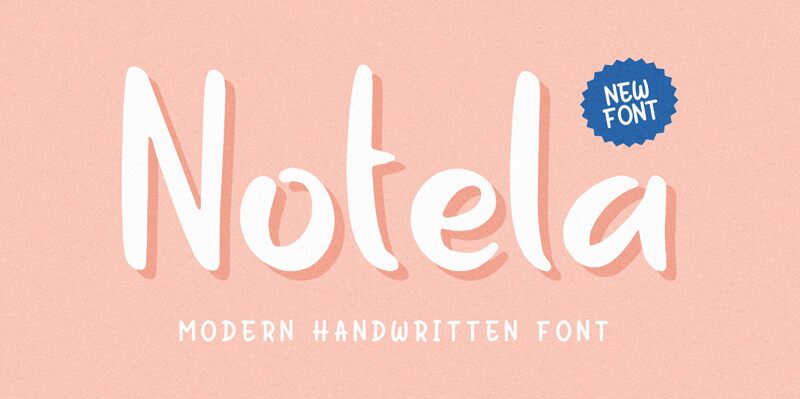
Notela, designed by Forberas Club, captures the essence of personalized artistry with its handwritten style. The font exudes a charming, playful character that is immediately engaging, characterized by its fluid strokes and welcoming curves. Its natural and organic feel makes it perfect for adding a personal touch to various design projects.
The distinctive aesthetic appeal combined with the subtle variations in weight makes Notela ideal for multiple applications. Whether you're crafting a heartfelt greeting card, designing an eye-catching logo, or creating stylish social media graphics, Notela brings an element of warmth and originality that stands out brilliantly. Its versatility extends to branding and packaging design where a unique, friendly quality is desired. Allow Notela to infuse your projects with authenticity and charm.